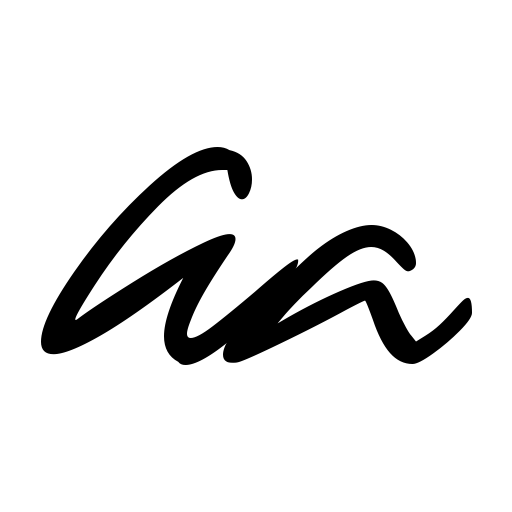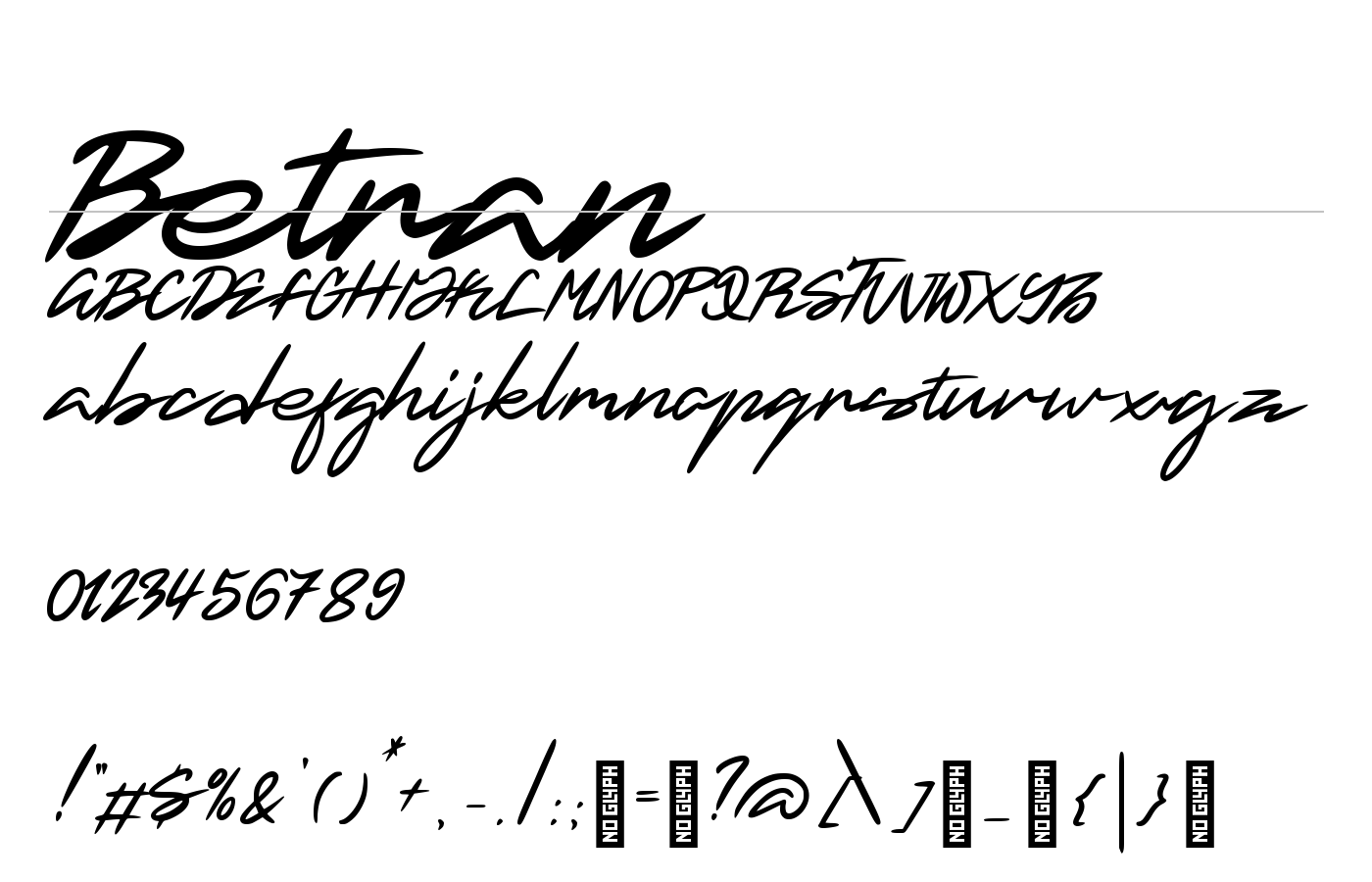
Betran is a dynamic and modern script font featuring fluid, handwritten strokes that combine both bold and delicate lines for an expressive look. Its slightly condensed, casual style with smooth curves and varied letter shapes makes it perfect for adding a personal, artistic touch to branding, invitations, or creative headlines. This font’s energetic and elegant personality works well in fashion, lifestyle, and creative design contexts where a stylish yet approachable feel is desired.
Betran Font